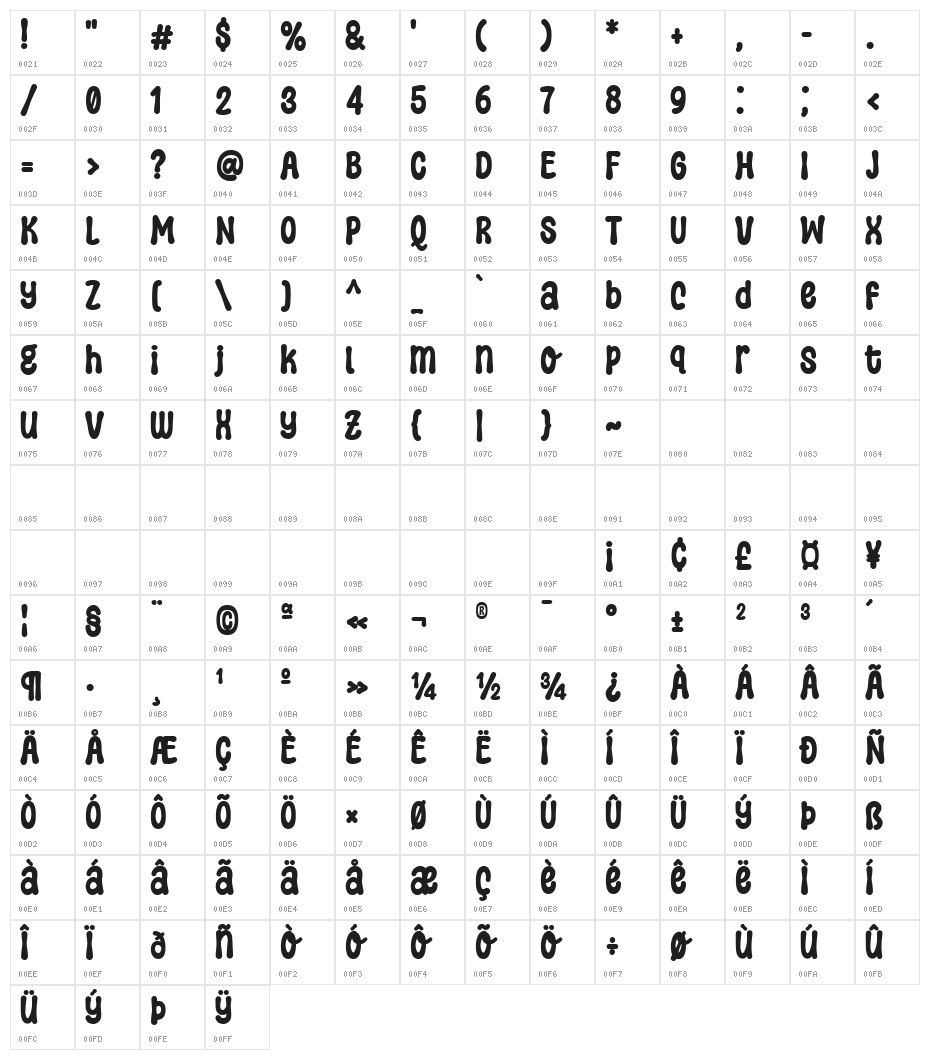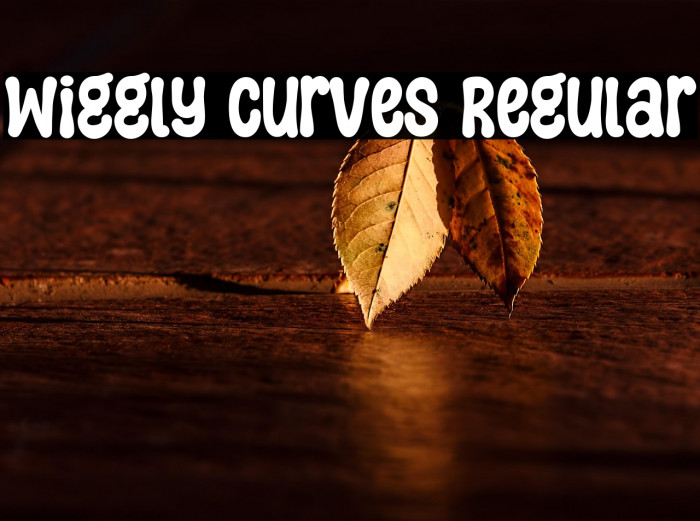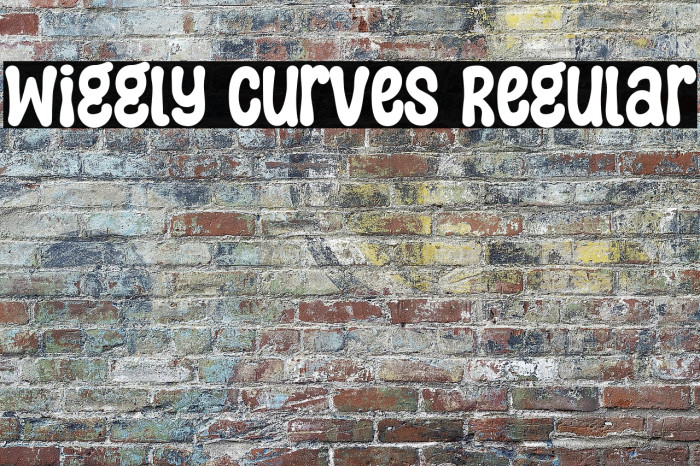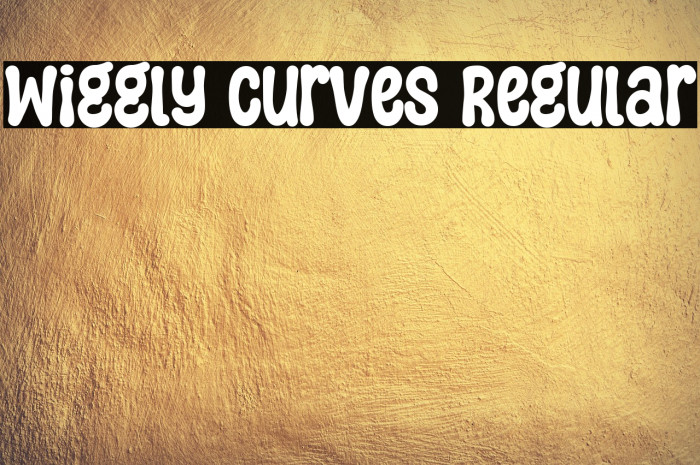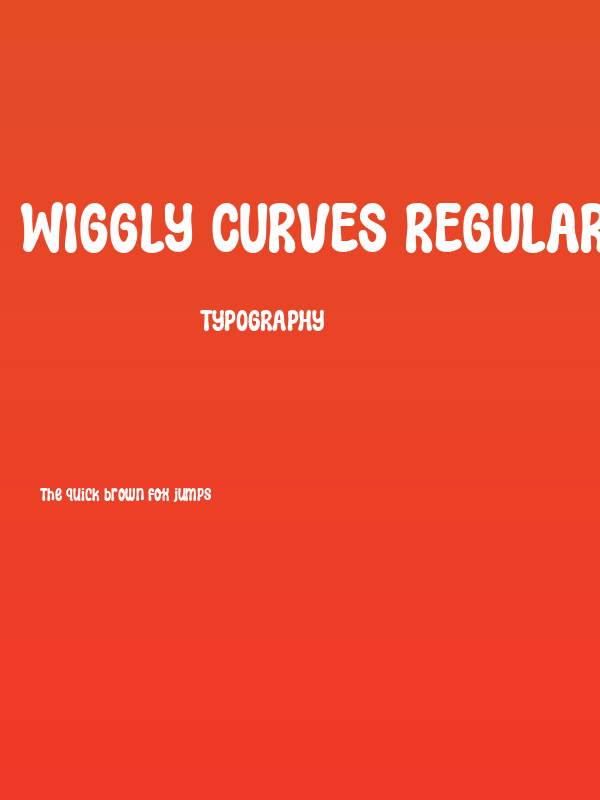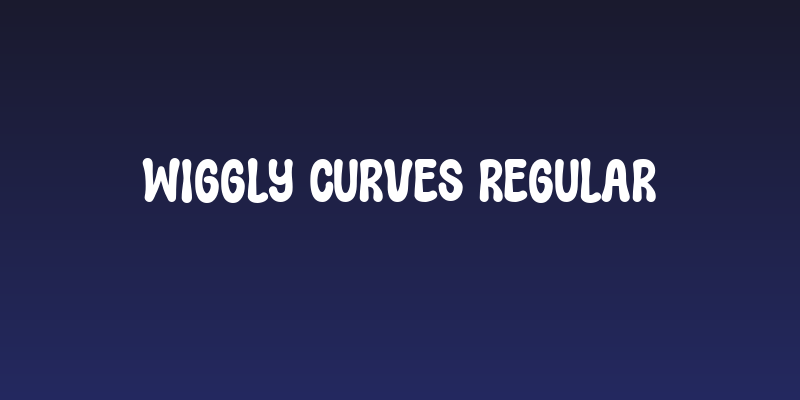
Wiggly Curves Regular Font
Wiggly Curves Regular Description
This font features a playful and whimsical design, characterized by its wavy and curvy letterforms. The strokes are bold and rounded, giving it a friendly and approachable appearance. Each character has a unique, hand-drawn quality, making it ideal for projects that require a touch of creativity and fun. The font maintains a consistent thickness throughout, with minimal contrast between strokes. Its distinctive style makes it stand out, perfect for capturing attention in various design contexts.
| Proposed Projects | Ideal for children's books, playful branding, creative posters, and fun social media graphics. |